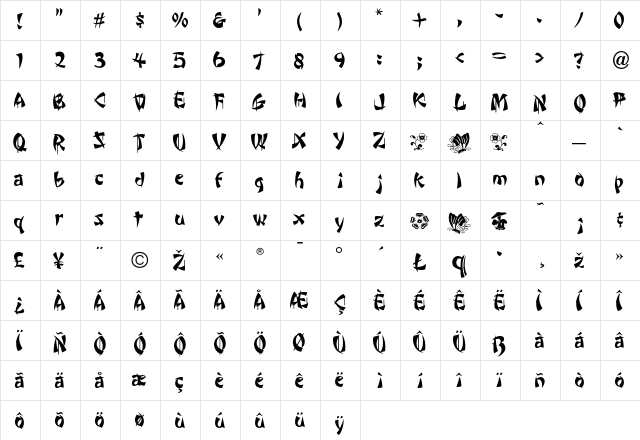
Chinatown Regular
Design Context for Chinatown Typeface
Chinatown is a composed and adaptable typeface that performs quietly and consistently across a wide range of design contexts.